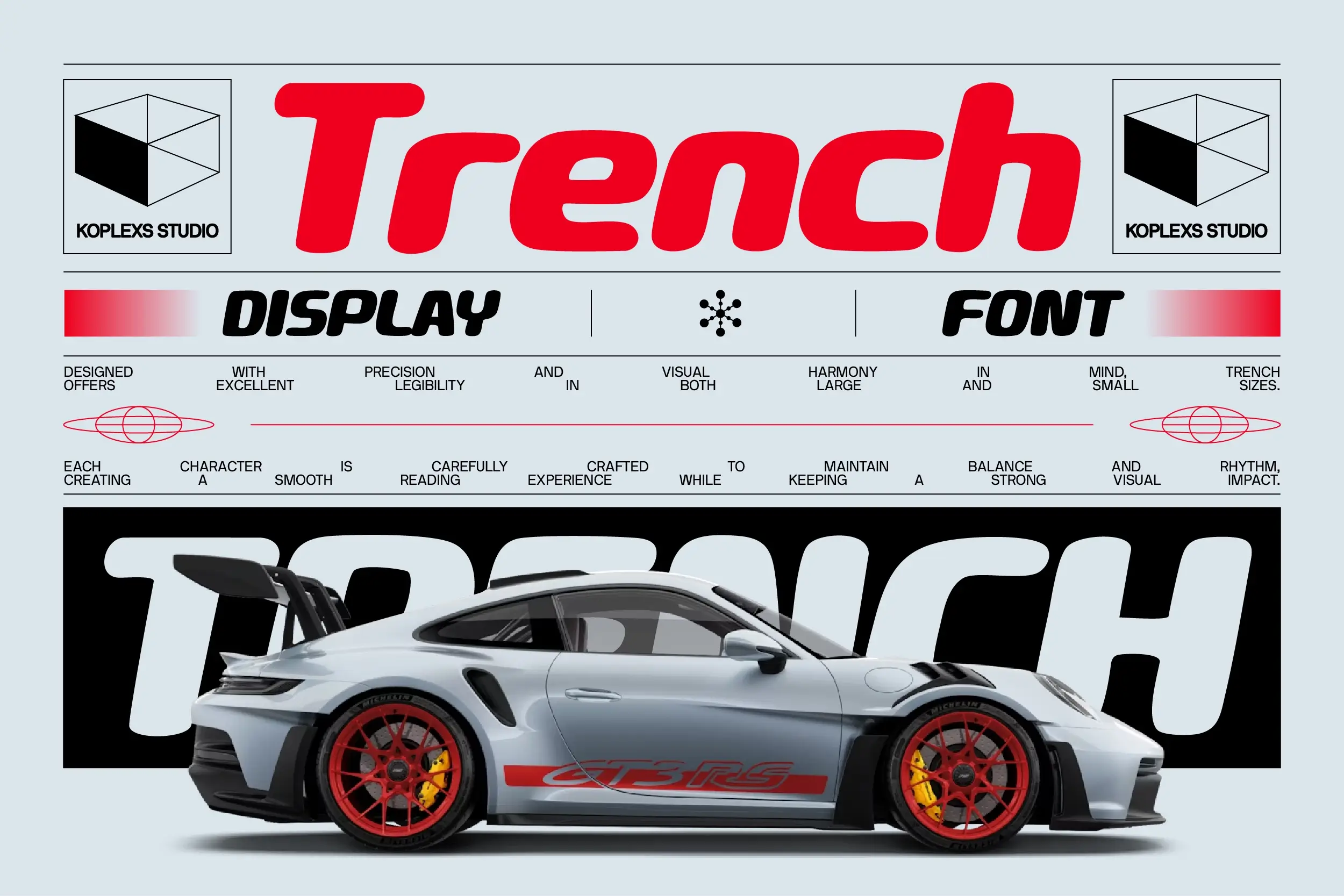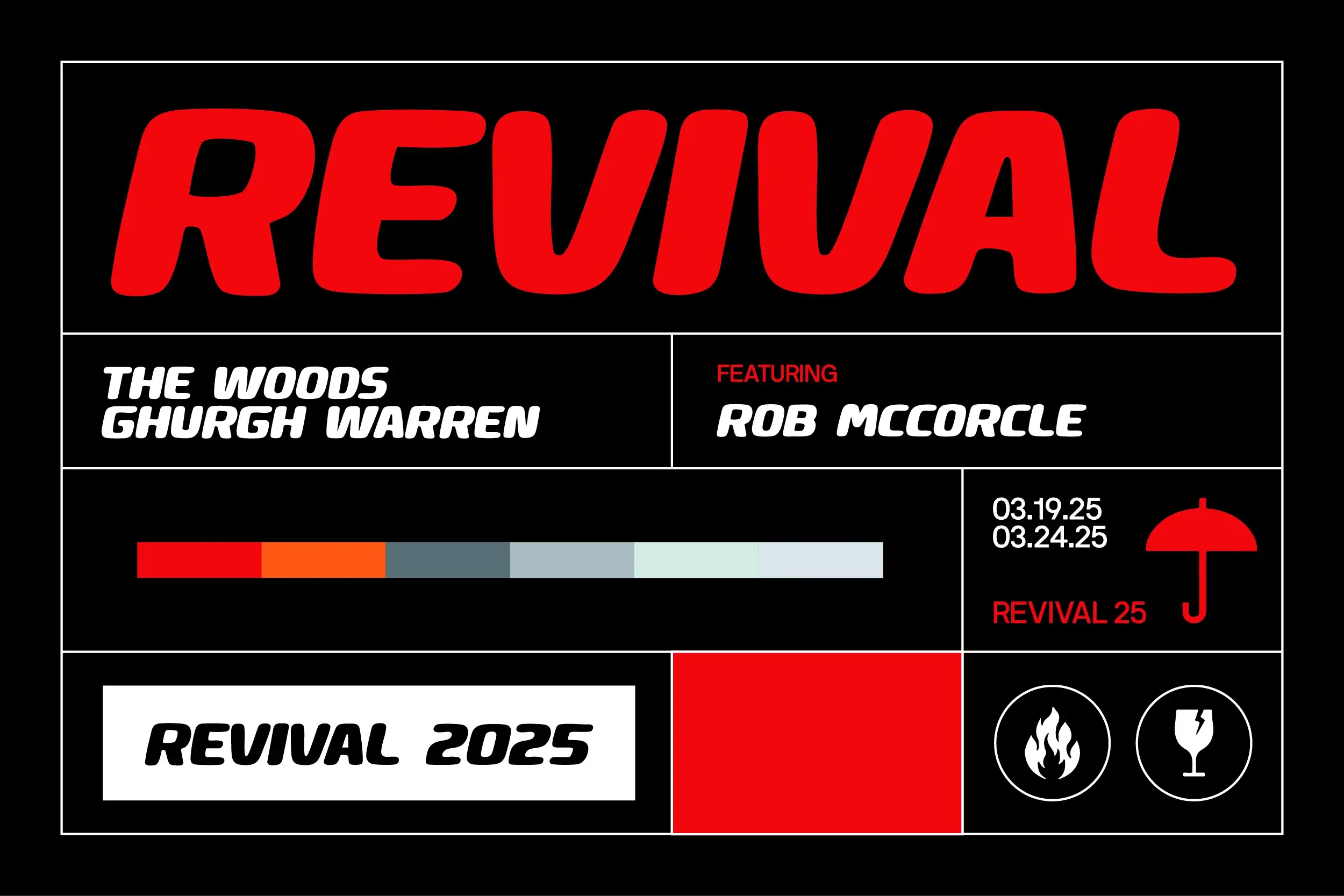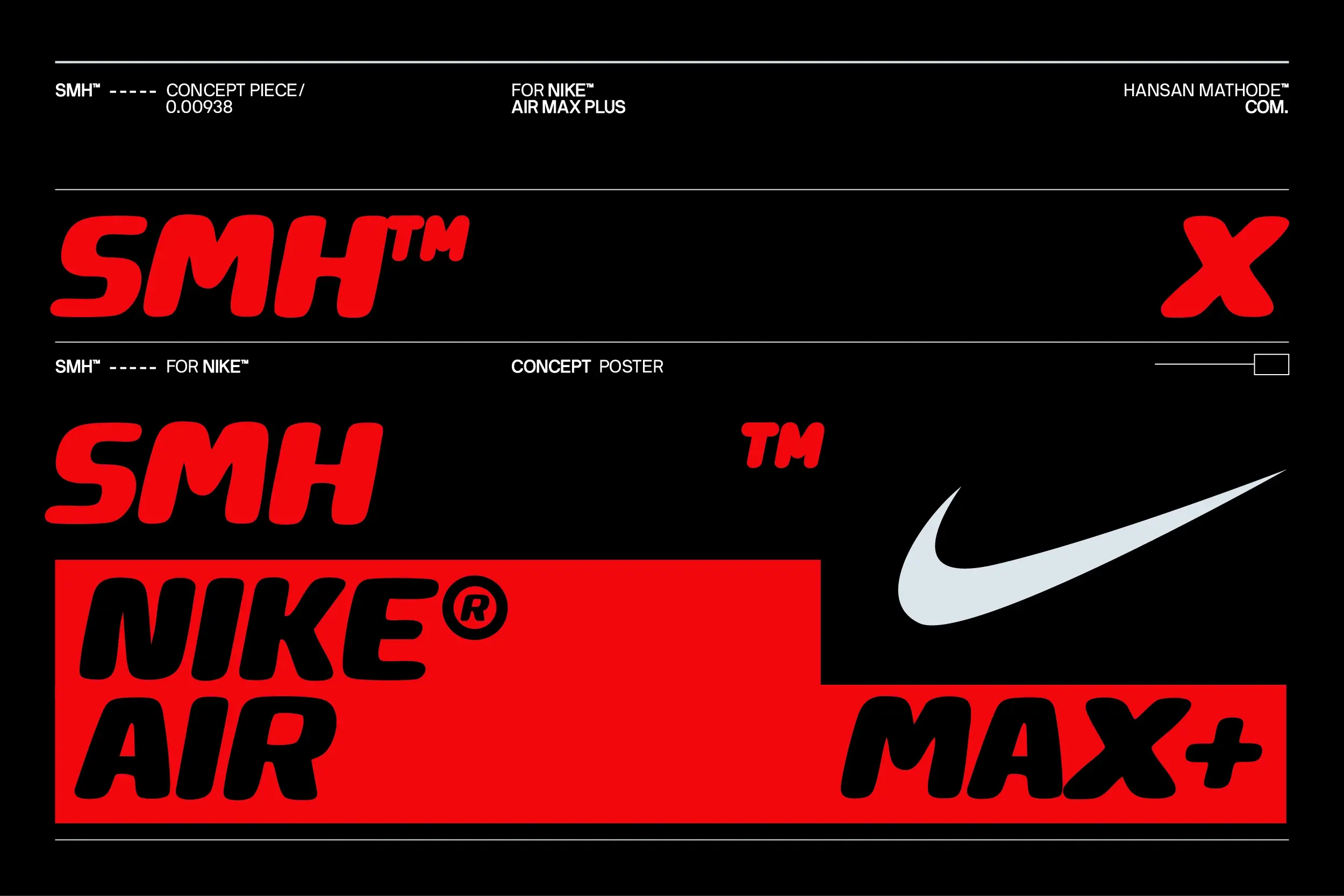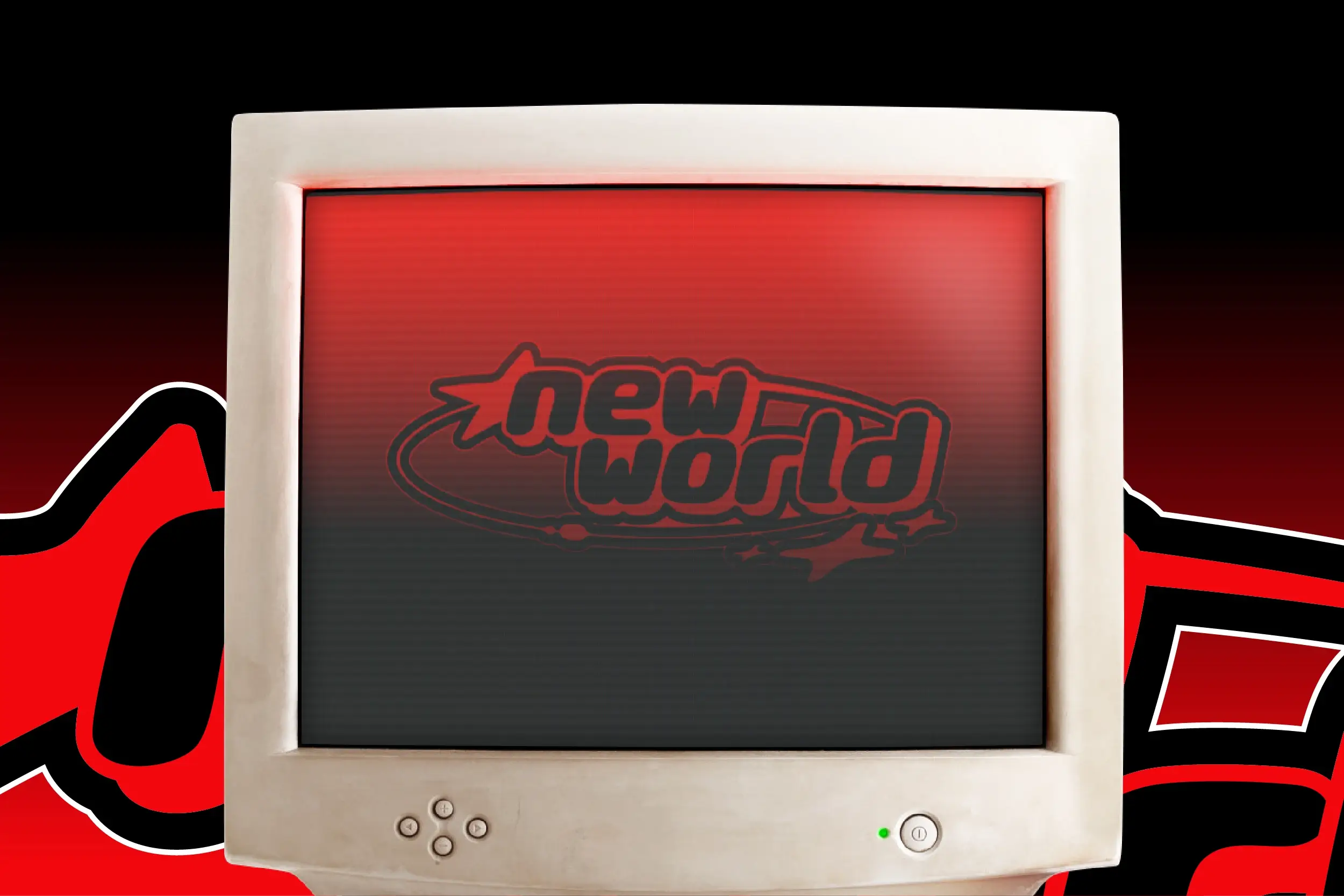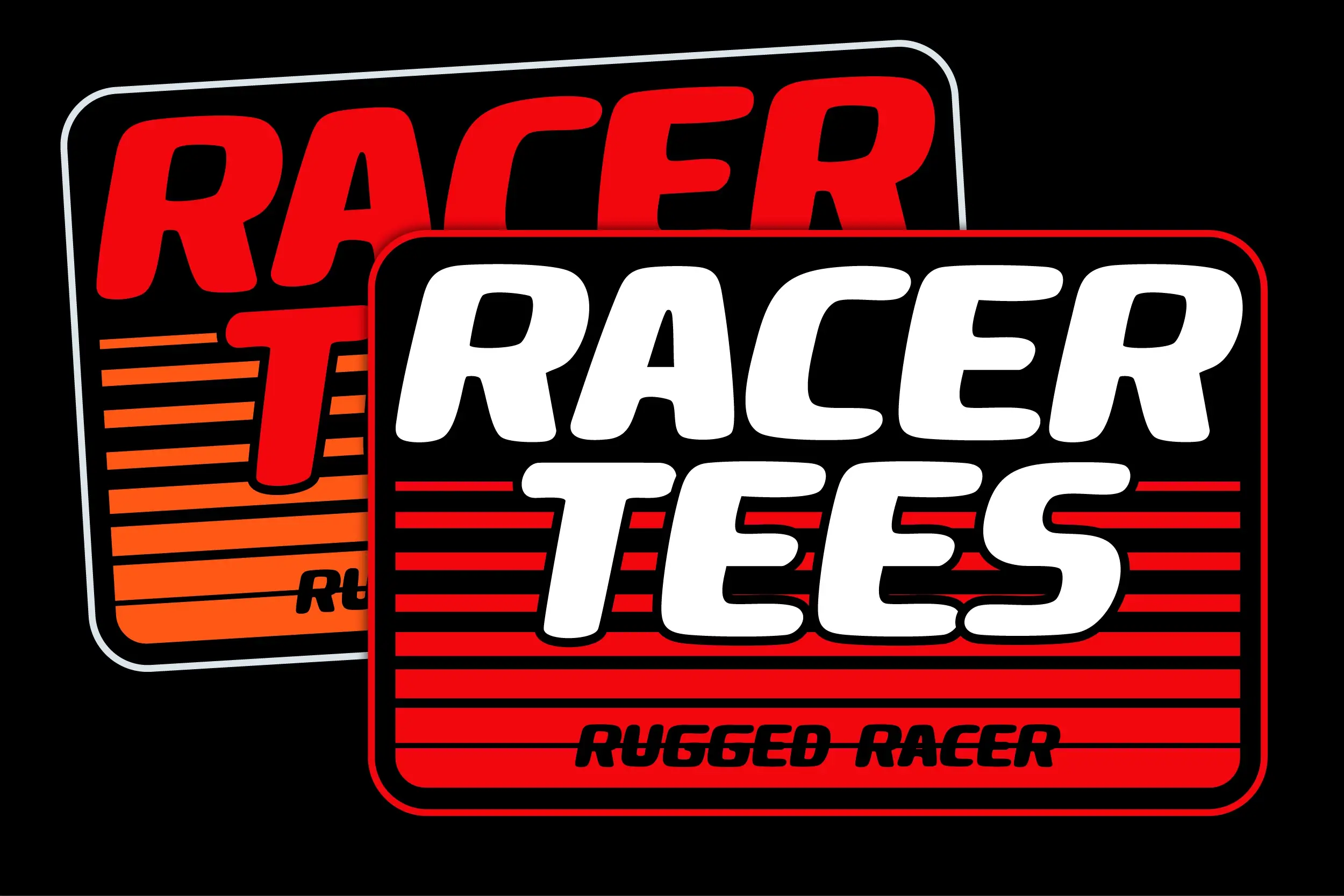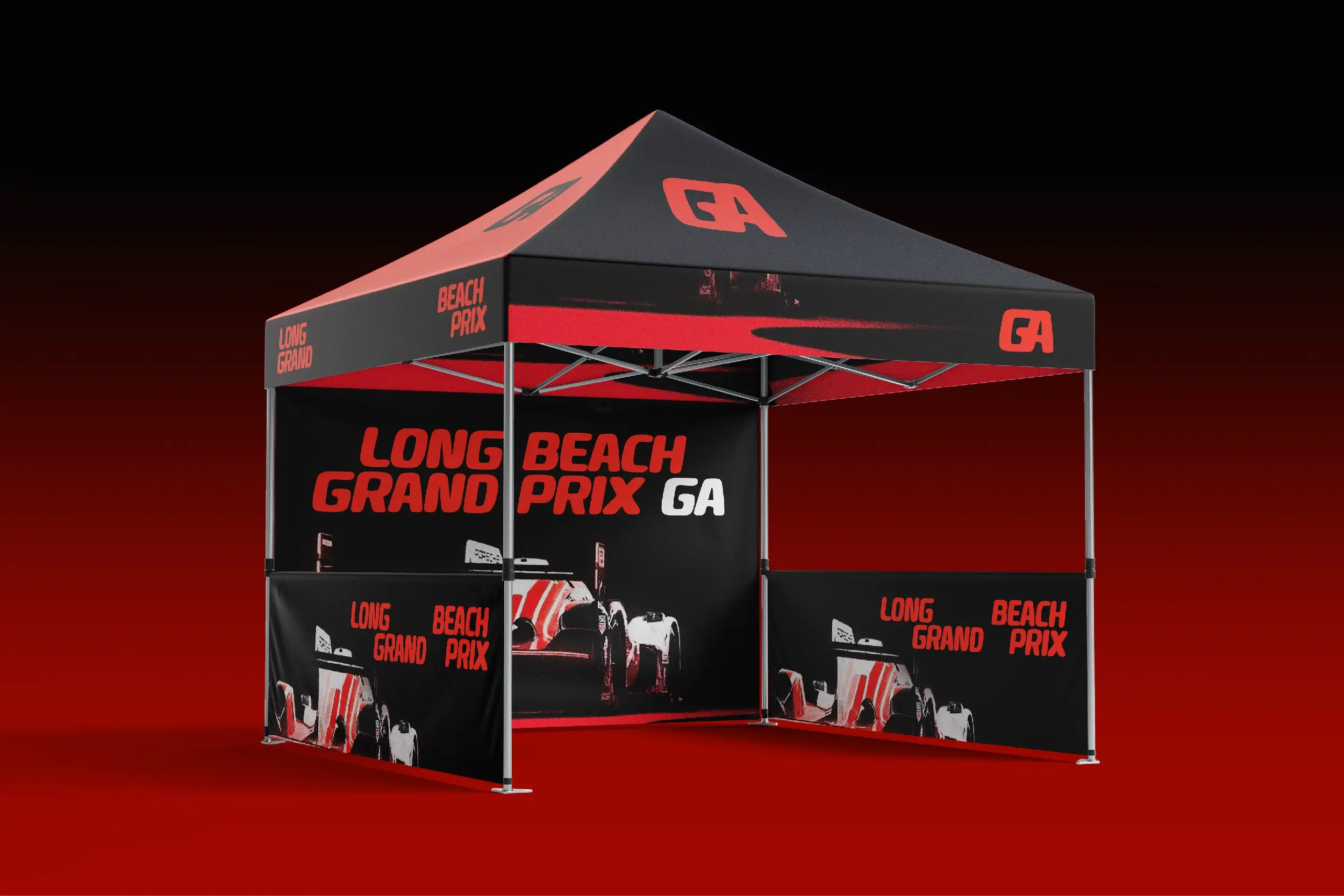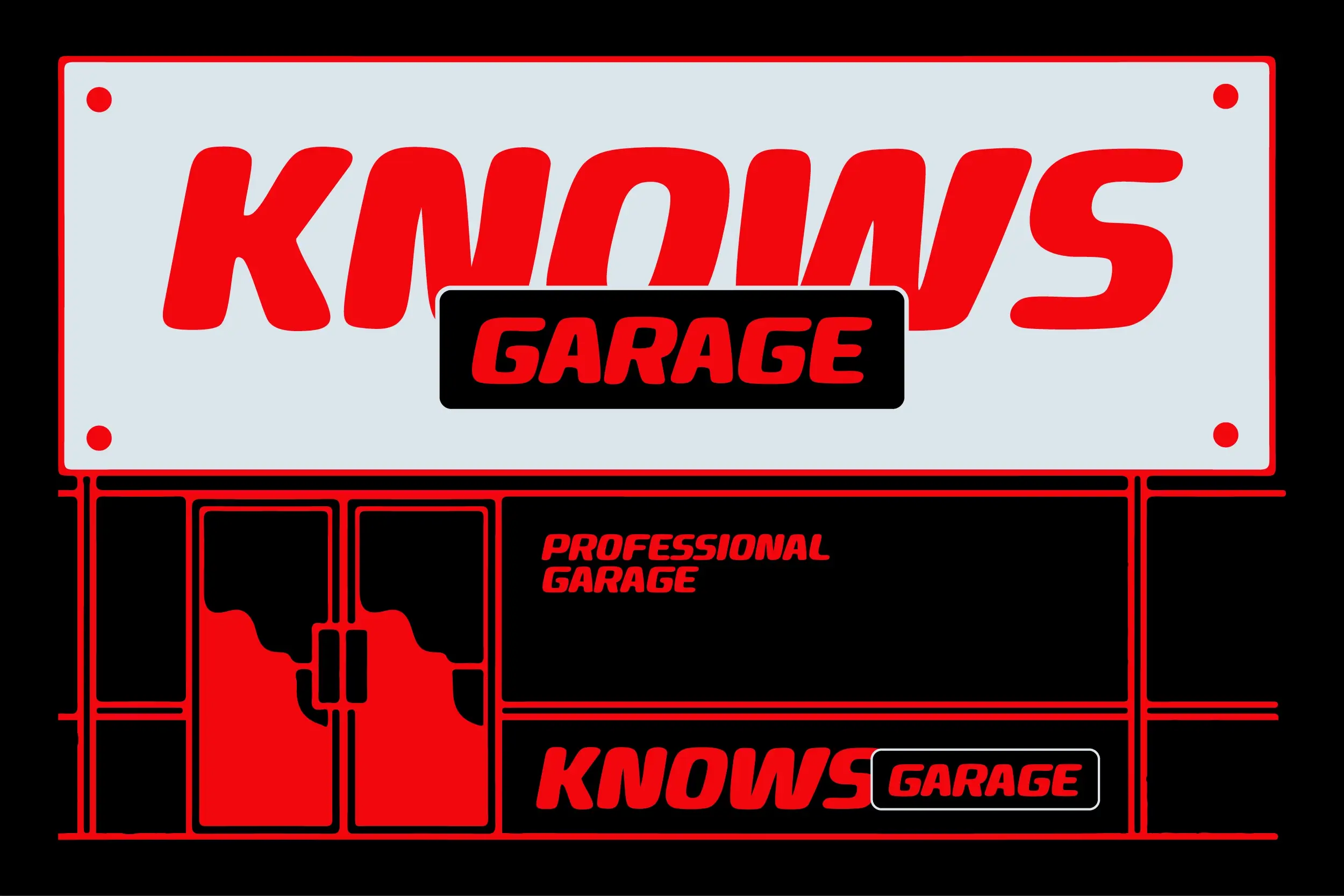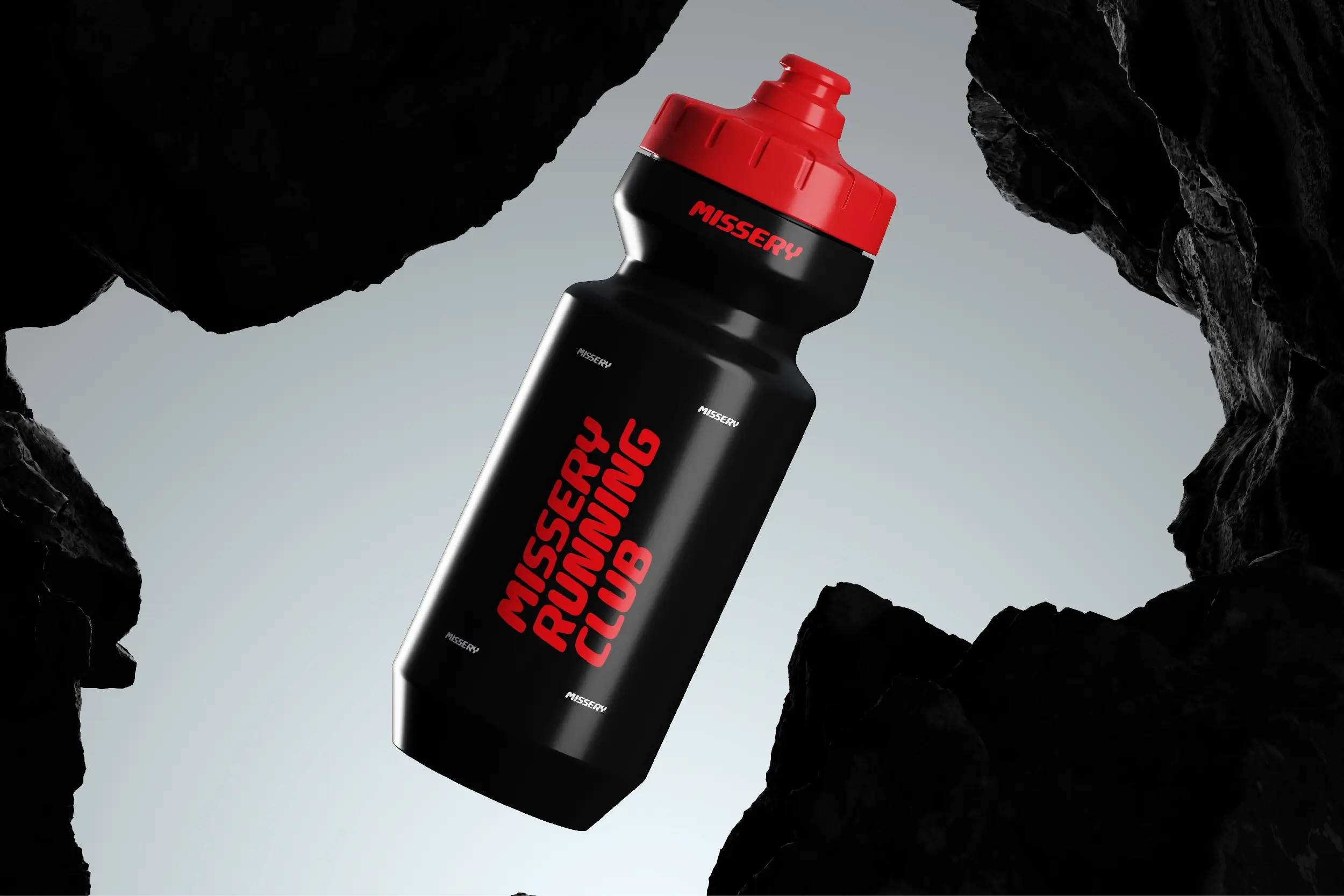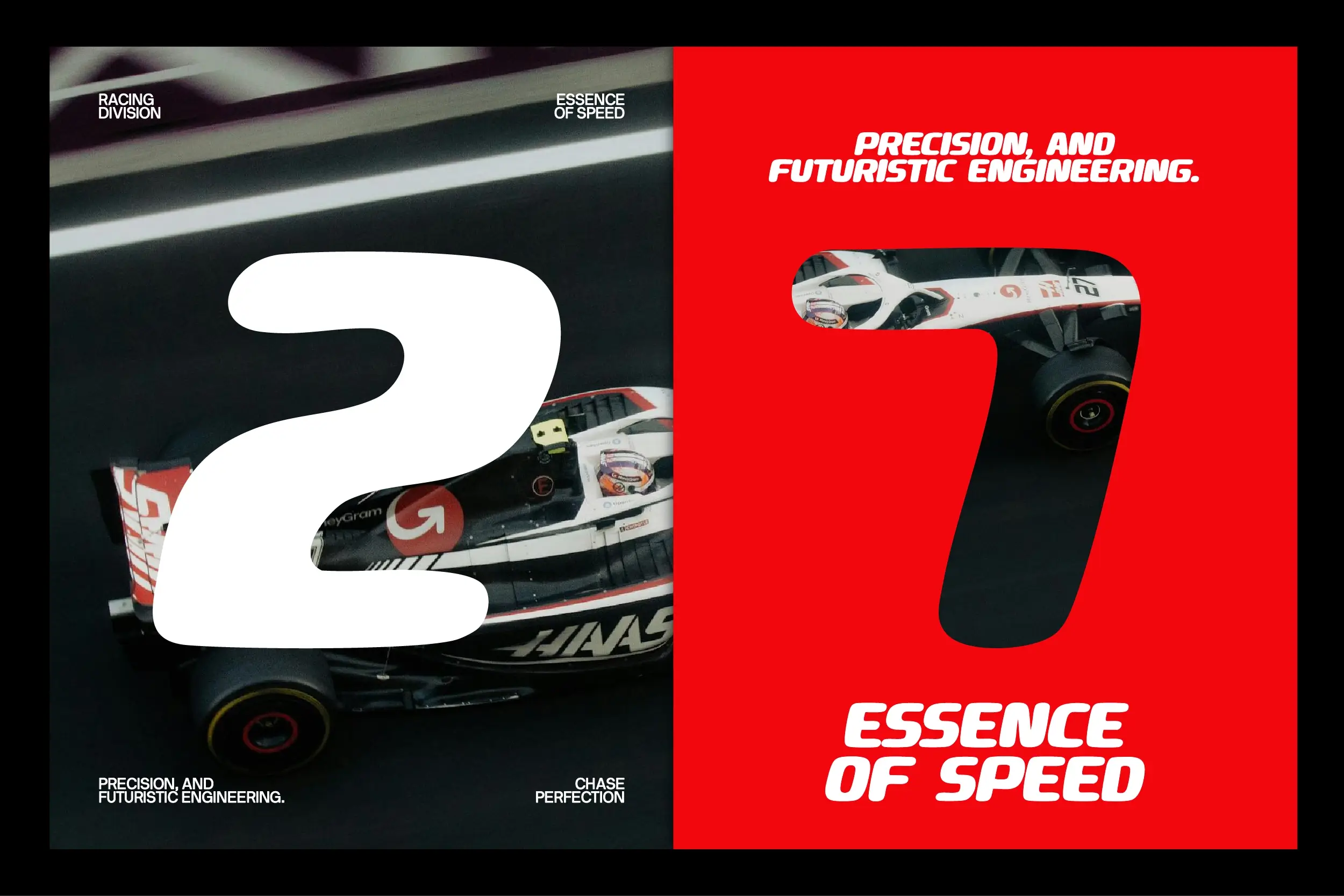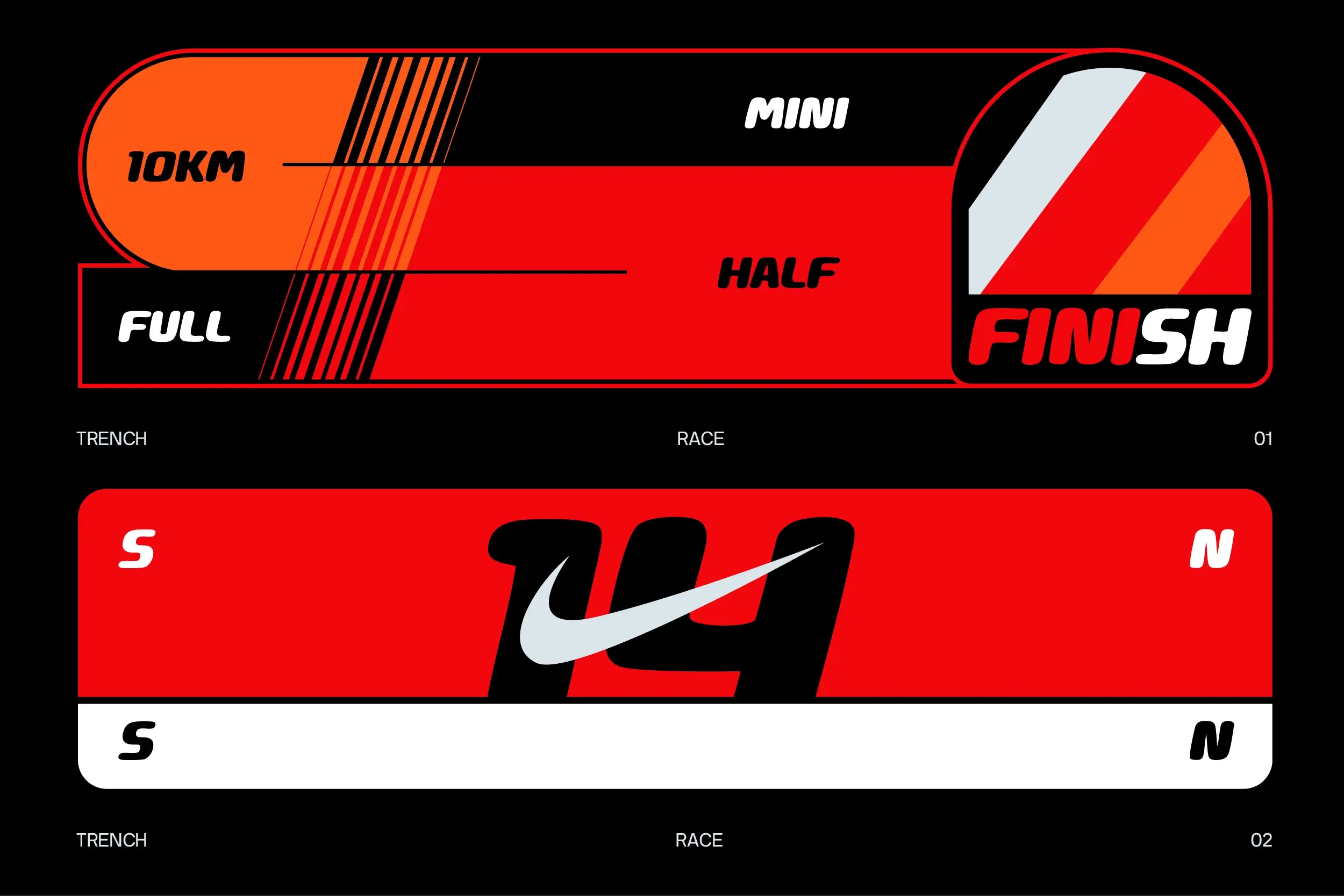
Trench Font: Rounded Racing Font for Logos and Sports
Trench Font is a rounded sans serif by Koplexs Studio with thick strokes, soft corners, and a forward slant. Its broad letterforms give racing logos and sports branding a sense of movement without losing their approachable character.
This display font works best when the lettering is the focus, such as a team name, event headline, or statement on a T-shirt. The substantial numerals also suit race numbers and dates, while the rounded lowercase adds a more casual feel to wordmarks.
Trench Font Best Suited For :
- Racing team identities and automotive branding
- Sports club merchandise and activewear graphics
- Race posters, banners, and event signage
- Garage logos, stickers, and apparel
- Social media headlines and Y2K-inspired designs
Pair Trench with a simpler typeface for supporting text so its distinctive shapes remain the focus. For more styles with an early 2000s feel, explore our Y2K font collection.